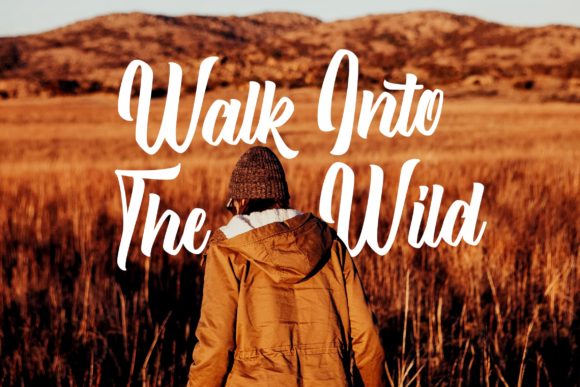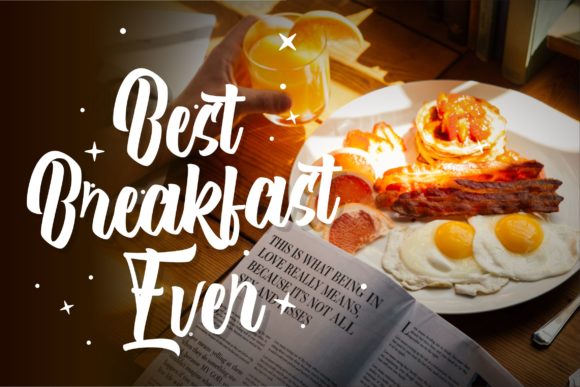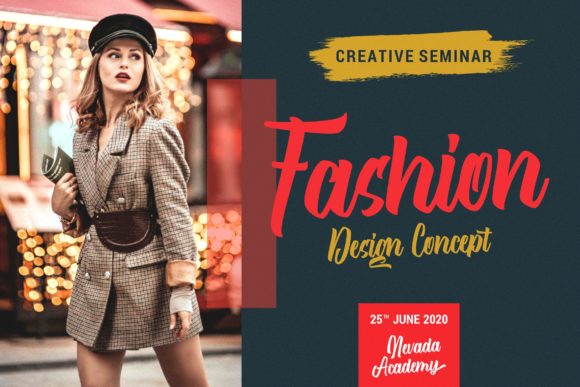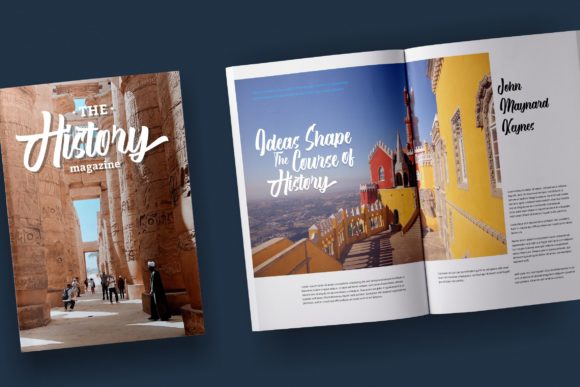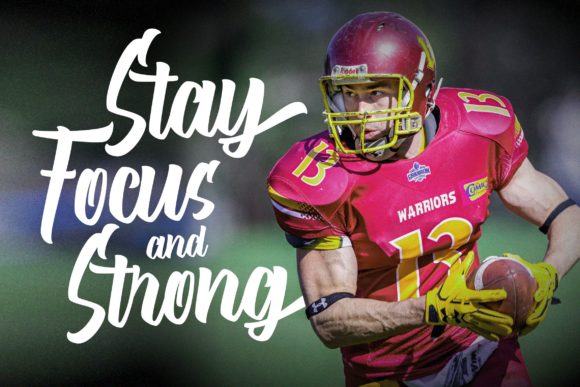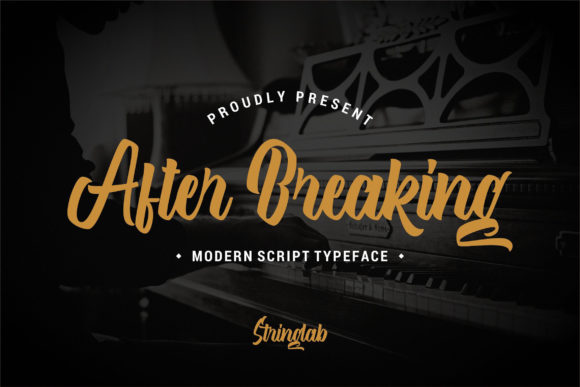
The Nostalgic Charm of After Breaking: A Font That Feels Like Home
I’ll never forget the moment I stumbled upon After Breaking while working on a branding project for a cozy coffee shop. I was on a mission to find the perfect font that would capture the warm, inviting atmosphere of the shop, and after hours of searching, I finally hit the jackpot. The authentic charm of After Breaking instantly resonated with me, and I knew I had found the perfect fit. In this article, I’ll share my love for this nostalgic script font, its unique features, and provide a practical guide on how to make the most of it in your designs.
- ✅ Authentic charm: After Breaking has a personal, handwritten feel that adds a touch of warmth to any design.
- ✅ Versatility: This font is perfect for a wide range of projects, from branding and packaging to invitations and social media graphics.
- ✅ Elegant strokes: The font’s smooth, flowing strokes make it a joy to read and look at.
- ⚠️ Limited use in very small sizes: While After Breaking is beautiful in larger sizes, it can become a bit blurry and lose its charm when used in very small sizes.
- ⚠️ Some letters may require manual kerning: As with any script font, some letters may require manual kerning to ensure optimal spacing and readability.
The Story Behind After Breaking
After Breaking was designed with the intention of capturing the essence of nostalgia and warmth. The font’s creator drew inspiration from classic scripts and handwriting, with a focus on creating a font that felt personal and authentic. The result is a font that feels like a warm hug – comforting, inviting, and full of character.
| Author | StringLabs |
Q: What is the best way to use After Breaking in a design?
A: After Breaking is a versatile font that can be used in a wide range of designs. For best results, use it as a headline or title font, and pair it with a clean, sans-serif font for body text.
Q: Is After Breaking a difficult font to read?
A: While After Breaking is a script font, it is designed to be easy to read. However, as with any script font, it may be more challenging to read in very small sizes or at a distance.